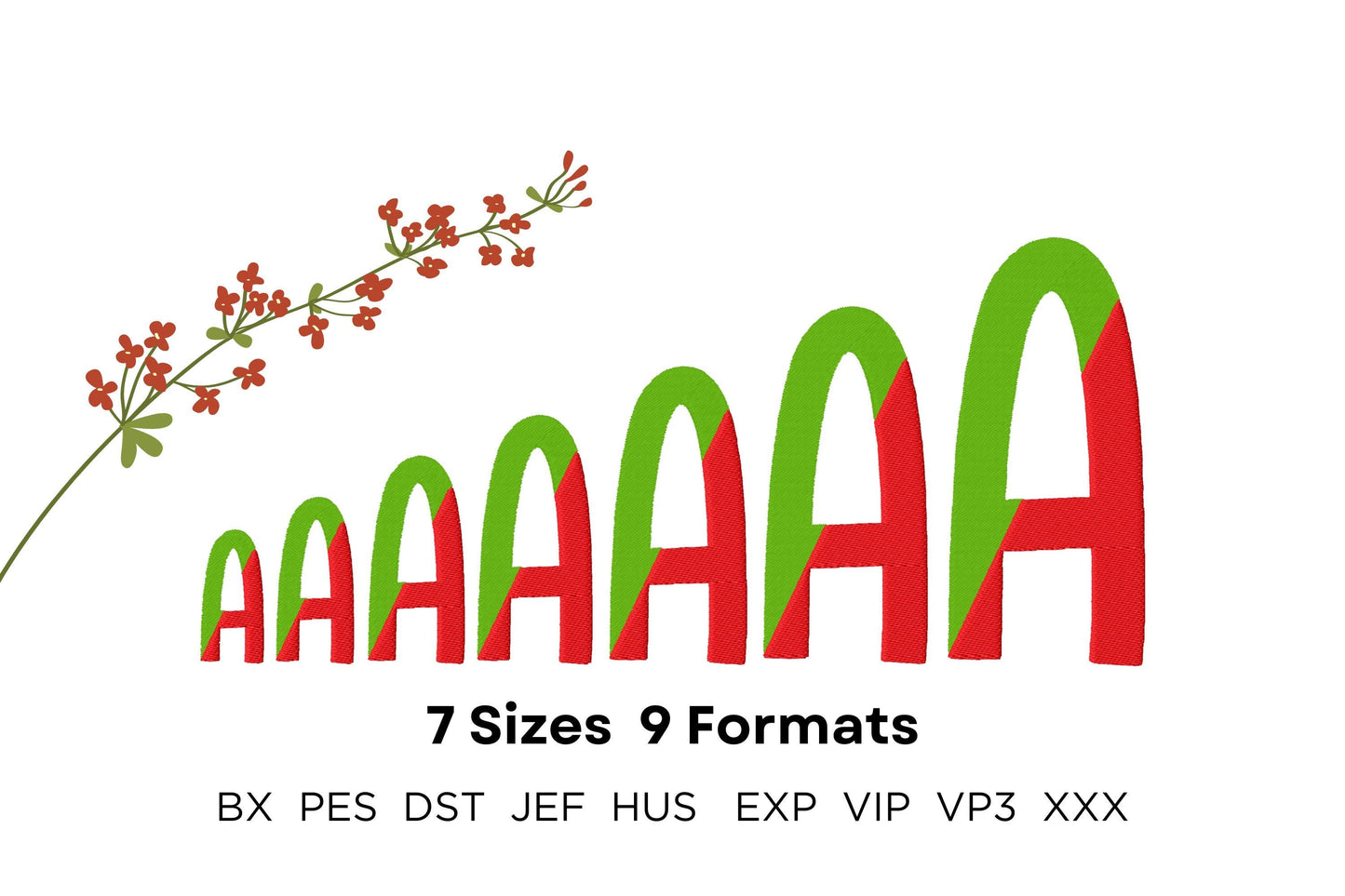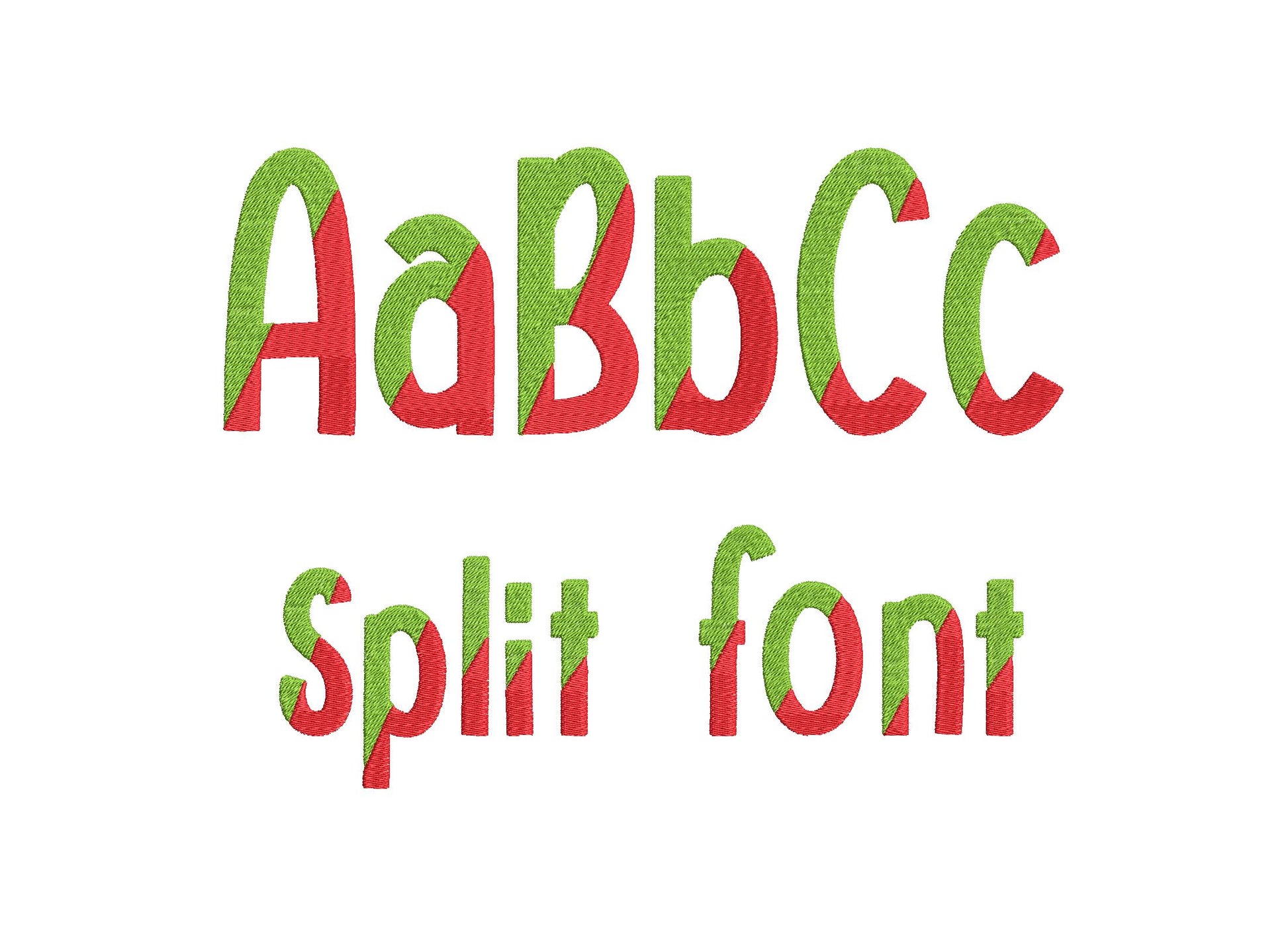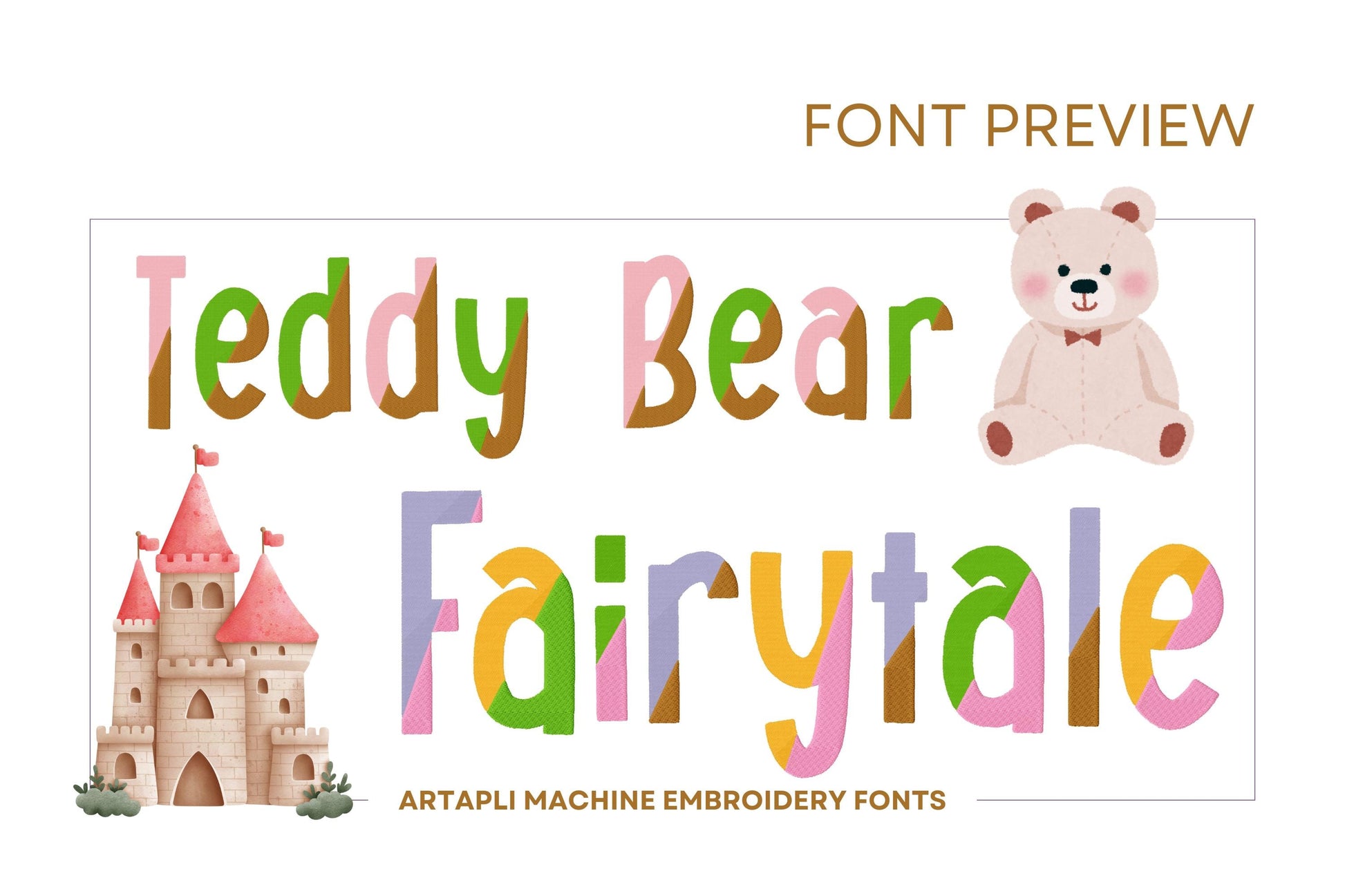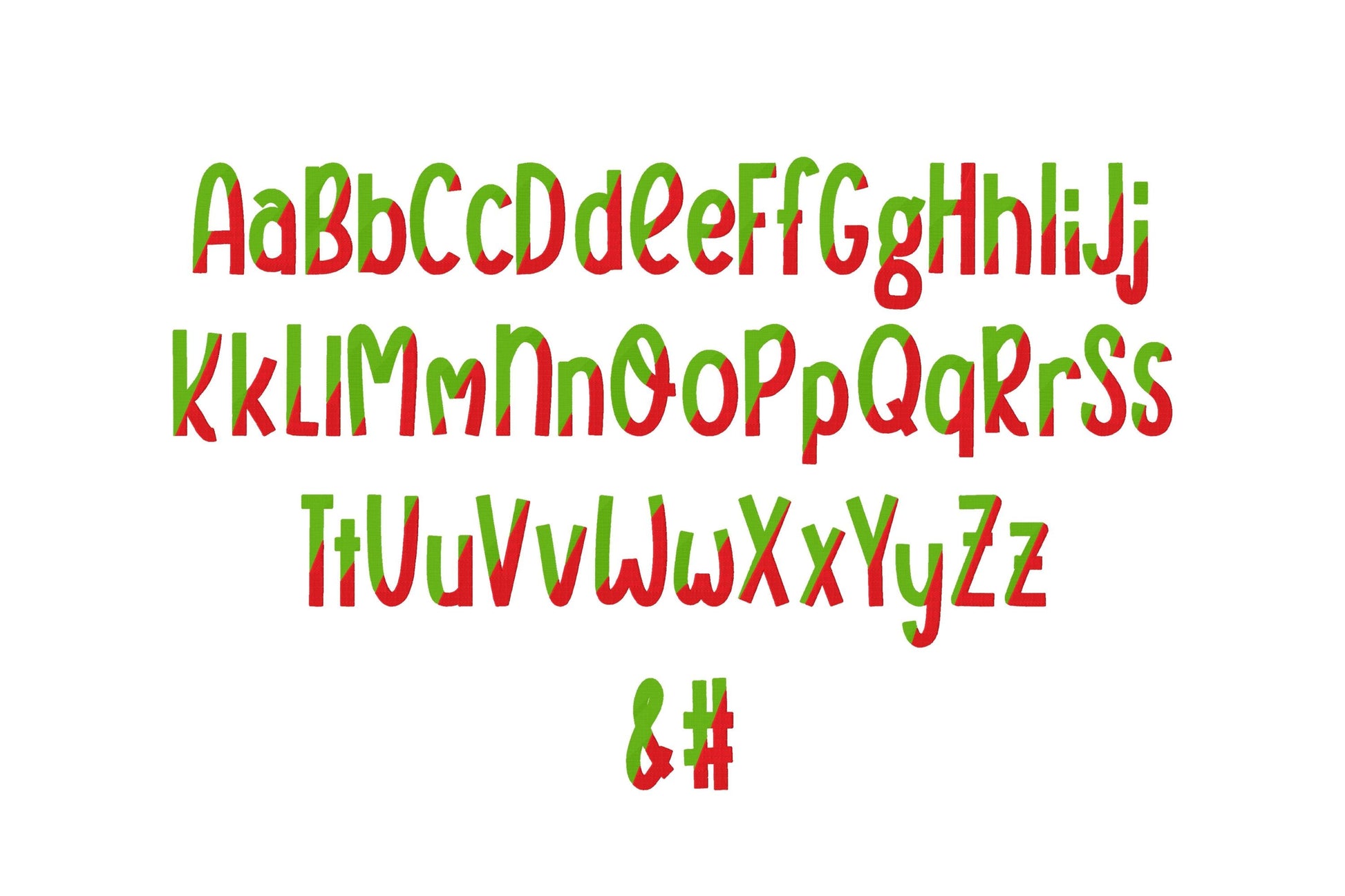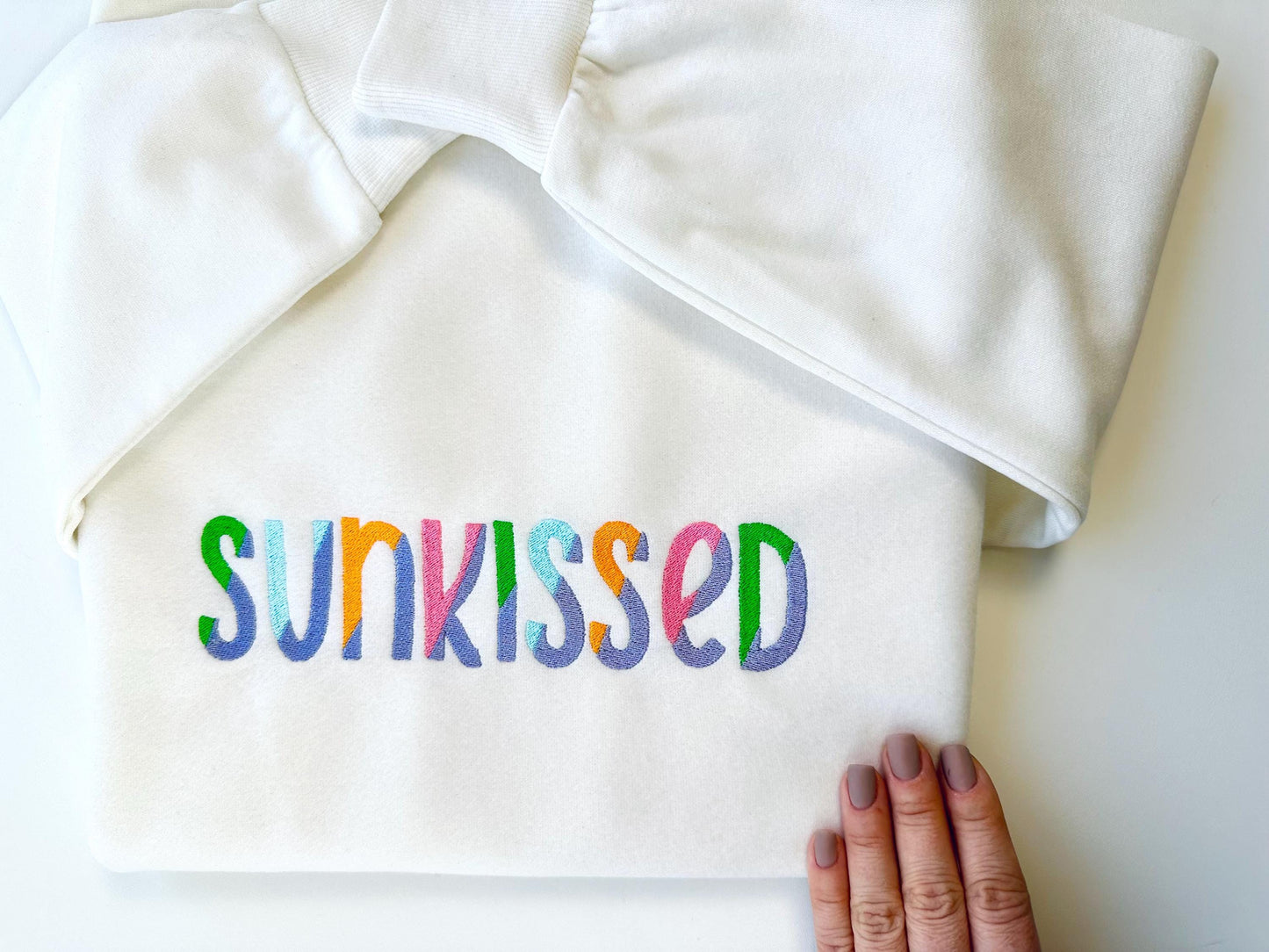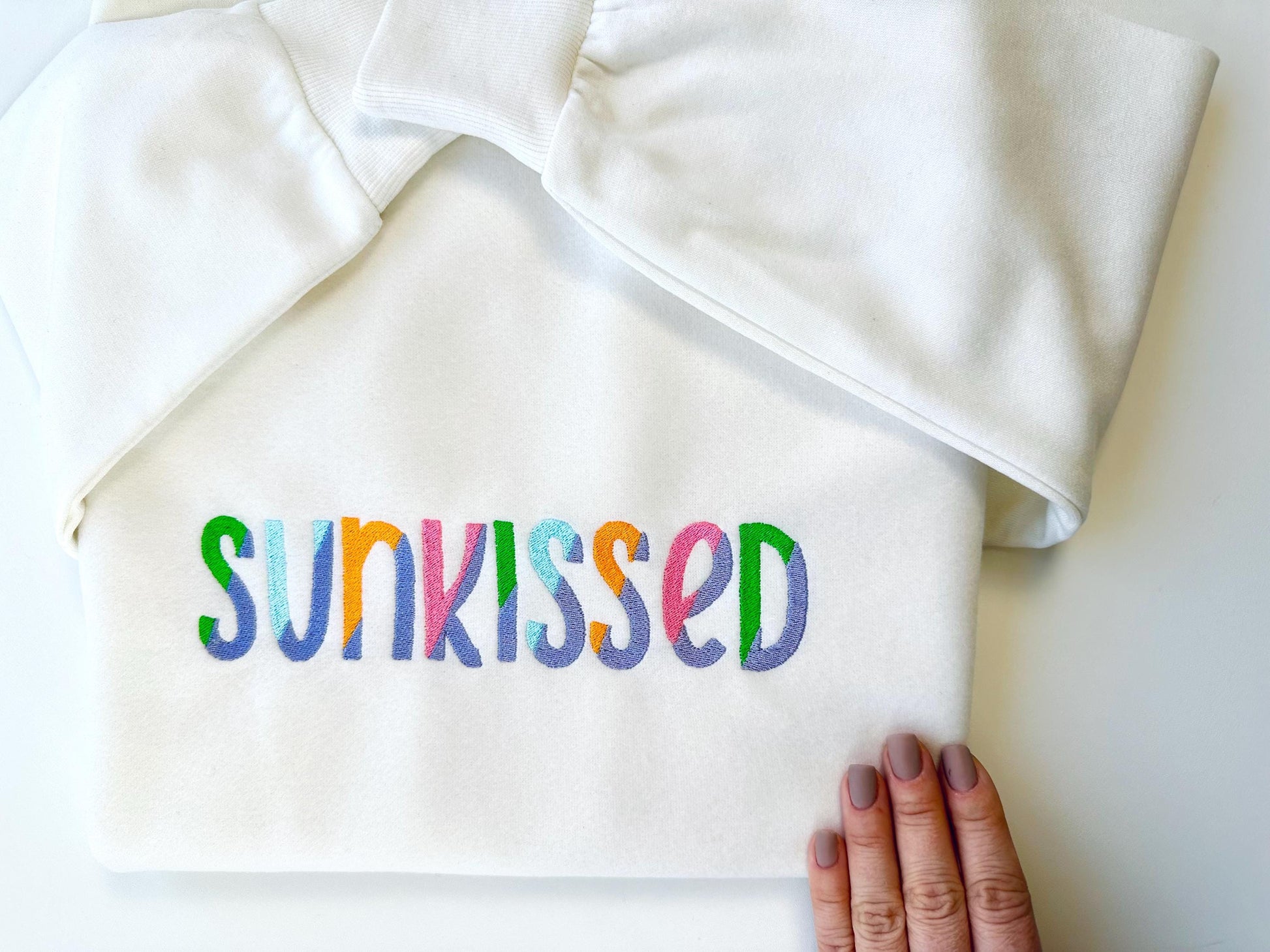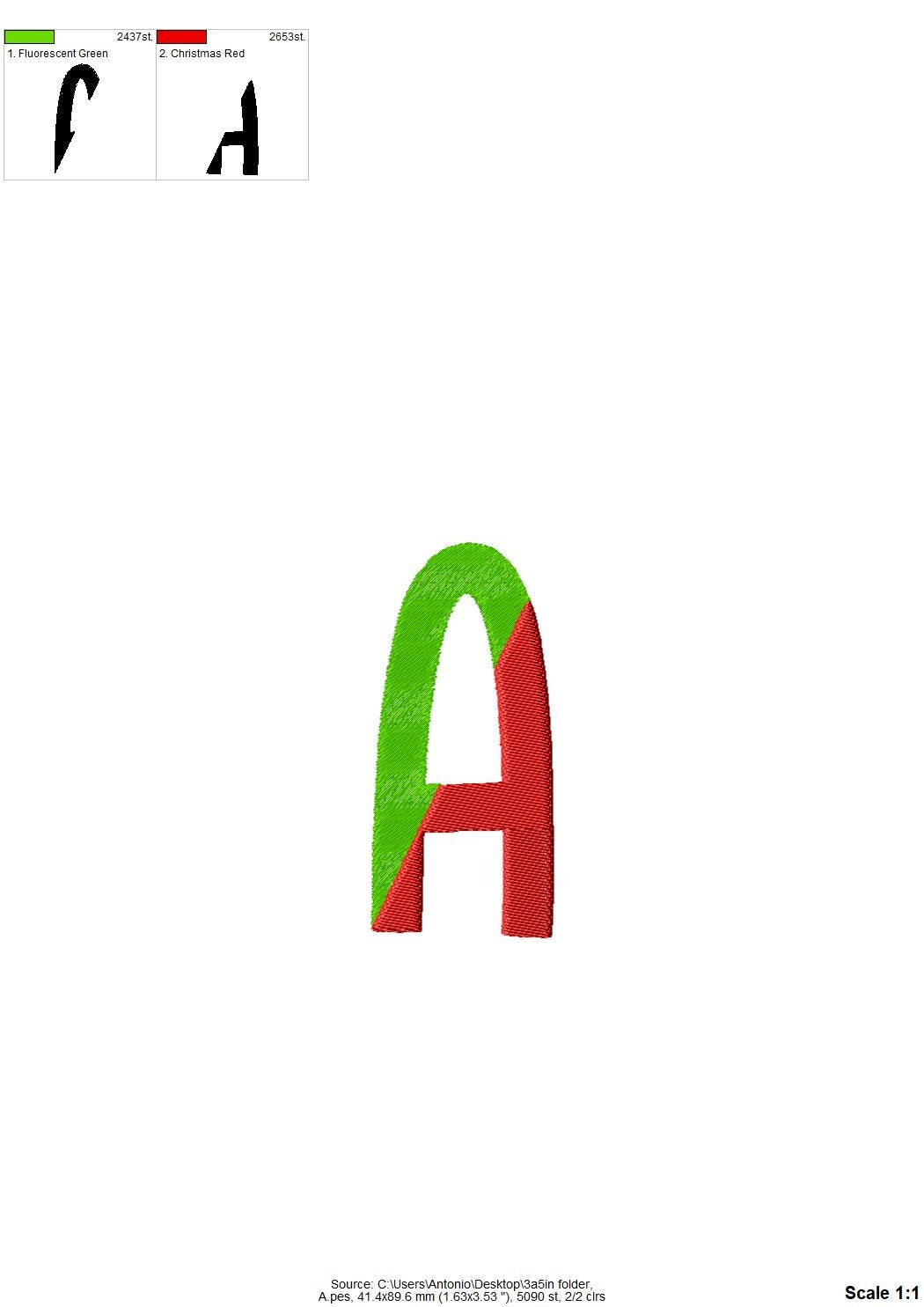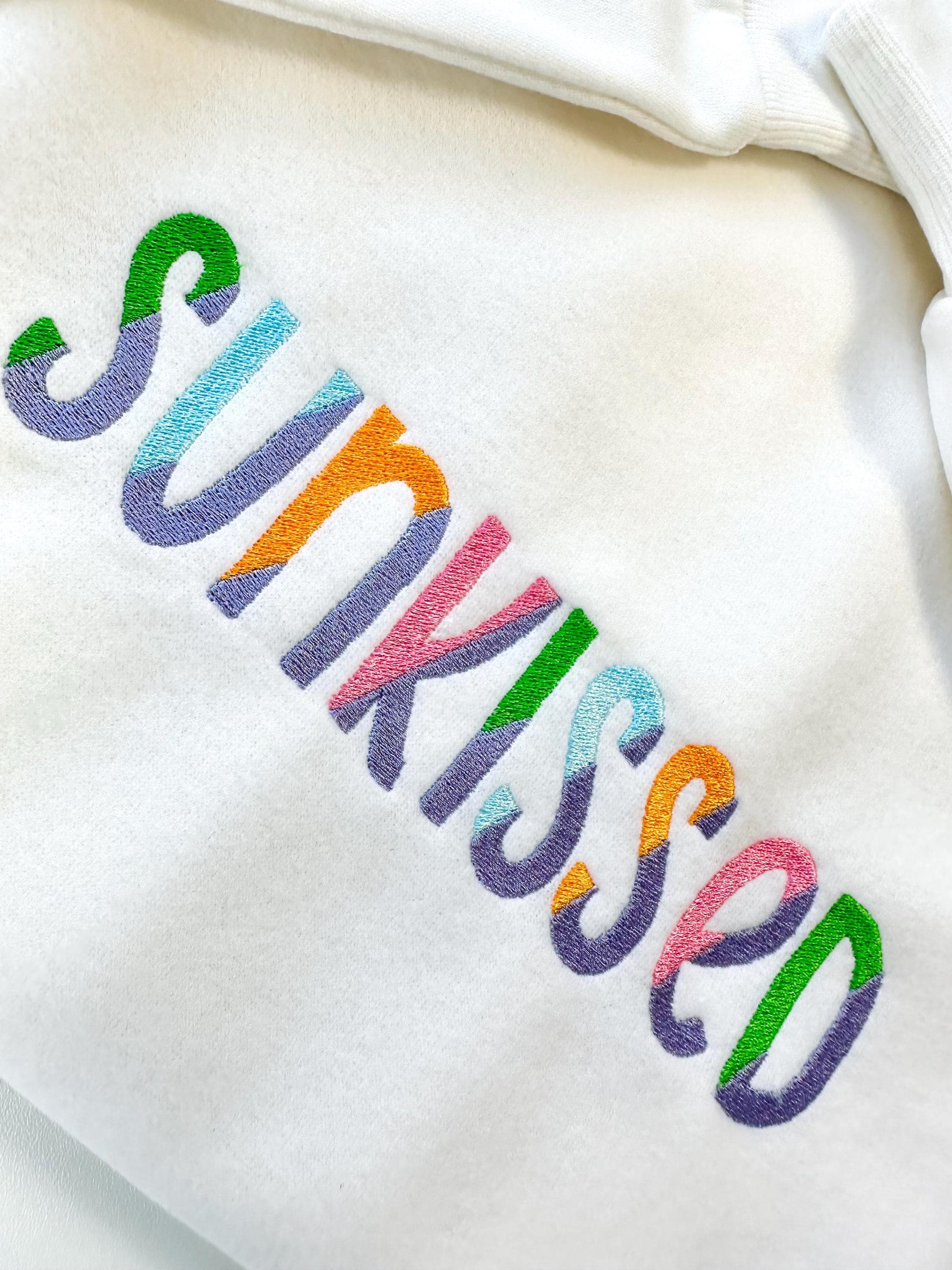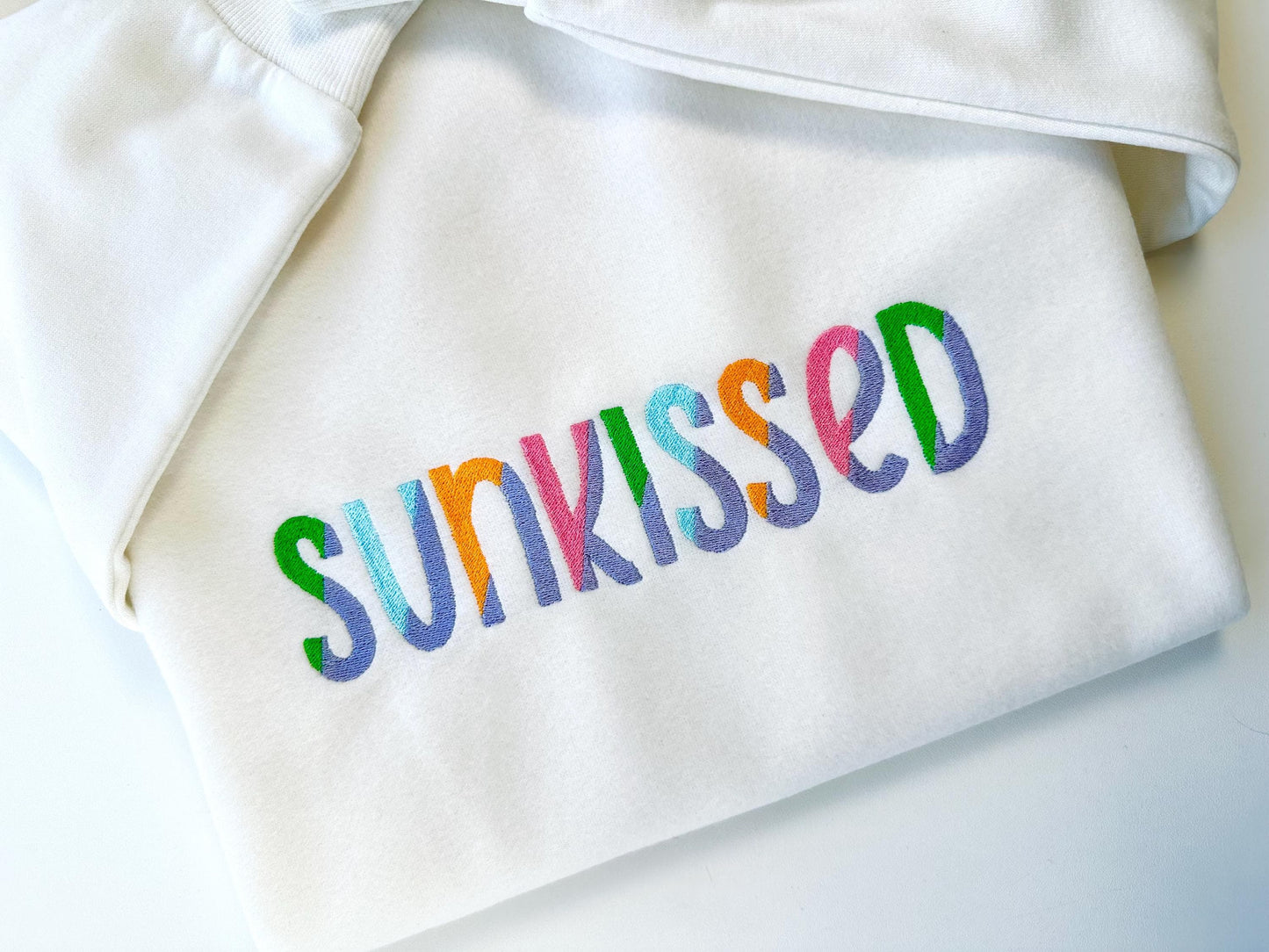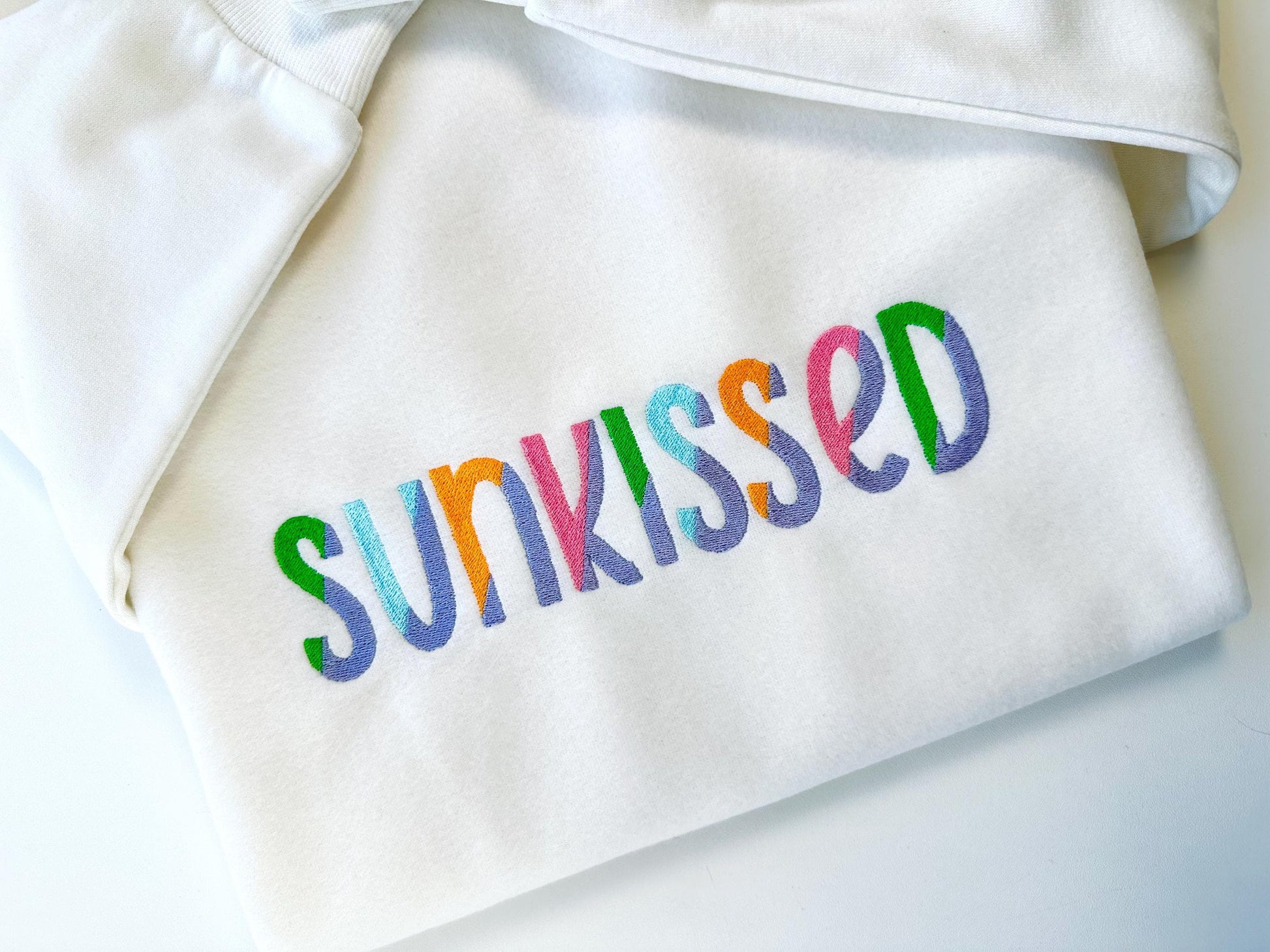
Fill Stitch Split Font Sunkissed
Or click to open the linkSunkissed, a bold split font in fill stitch, divided through the middle. Fun for kids' names, monograms and summer shirts.
Uppercase and lowercase letters, numbers 0 to 9, an ampersand and a hash sign, in seven sizes: 1.6, 2, 2.5, 3, 3.5, 4.2 and 5 inches.
- Split fill stitch font
- Uppercase and lowercase letters, numbers 0-9, & and hash
- 7 sizes, 1.6 to 5 in